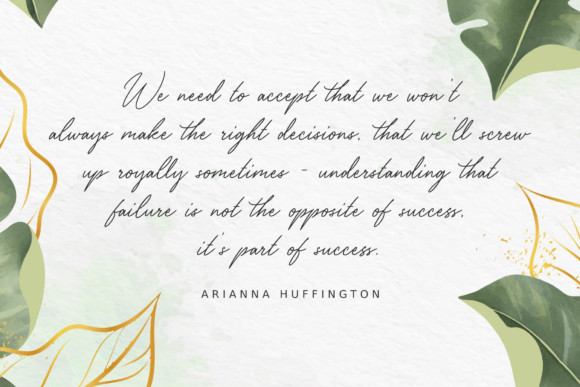
Sallythone Font
Sallythone is a classy signature font, with many alternates and ligatures. It is suitable for branding projects, invitation cards, websites, and much more. This font is PUA encoded which means you can access all of the glyphs and swashes with ease!